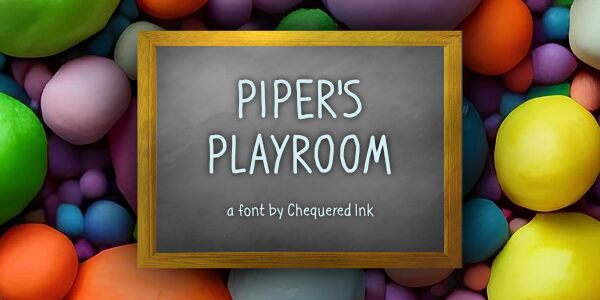
Piper's Playroom
Piper's Playroom, a delightful handwritten font by Chequered Ink, brings a playful charm to any project.
With its semi-light weight and semi-condensed width, this font is perfect for children's book covers, whimsical invitations, and cheerful greeting cards. Its organic strokes and playful curves evoke a sense of creativity and imagination. Whether designing nursery decor or crafting an animated logo for a toy store, Piper's Playroom will add a touch of childlike wonder to your creations.
Let your imagination run wild with this enchanting typeface!